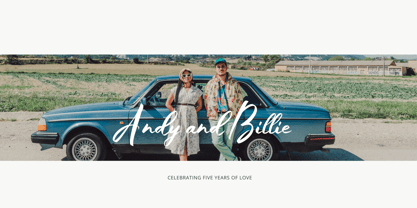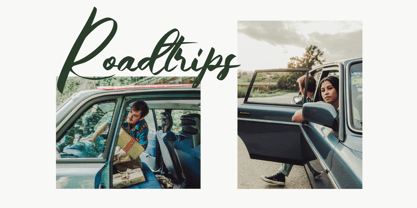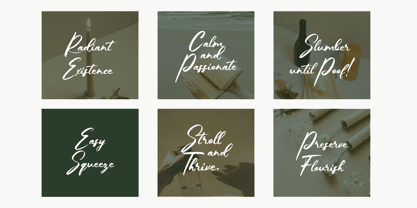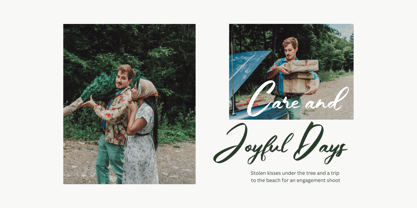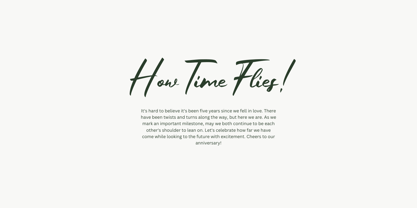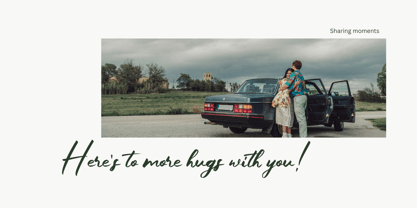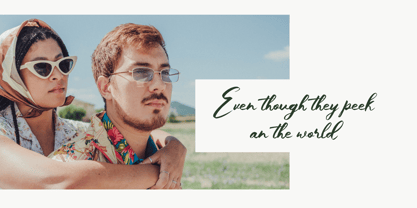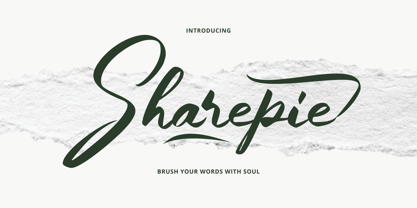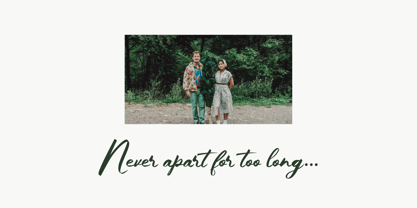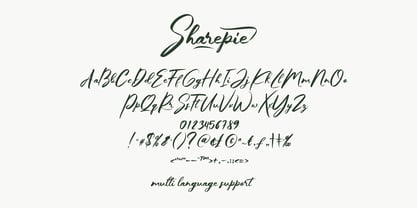
Sharepie
by Saytype
The Sharepie Font Family was designed by Sayuti Yuti and published by Saytype. Sharepie contains 1 styles. More about this family
Sharepie is a modern brush script font with bold strokes, clean curves, and a confident edge. Inspired by handwritten calligraphy, it blends expressive movement with stylish clarity—perfect for branding, packaging, invitations, and social content.
Designers: Sayuti Yuti
Current Foundry: Saytype